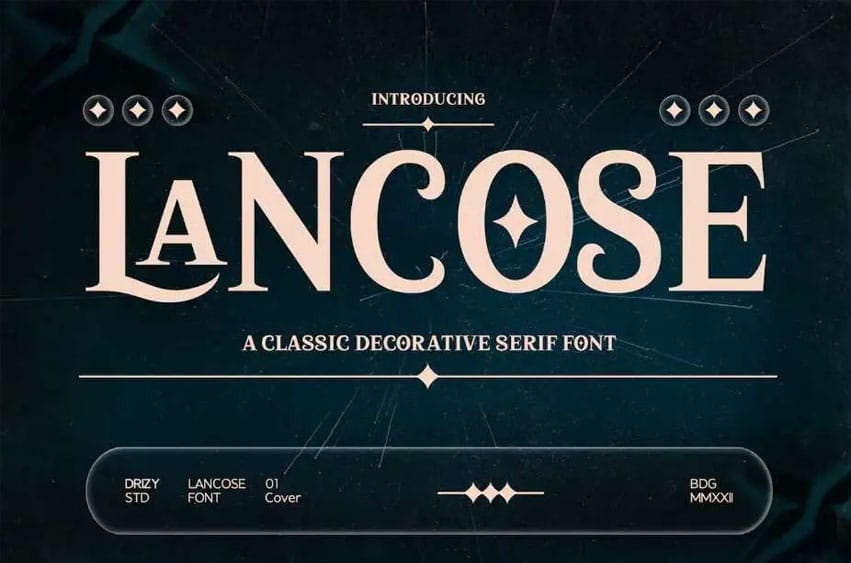
Lancose Font by Drizy studio is a beautiful Classic Serif typeface with all the fundamental formats required for finest Vintage design work.
Lancose has several descendants, namely, Uppercase and Lowercase Numbers with Punctuation using Multilingual Alternate Ligatures If there are any problems with this product, we would like to hear from you.